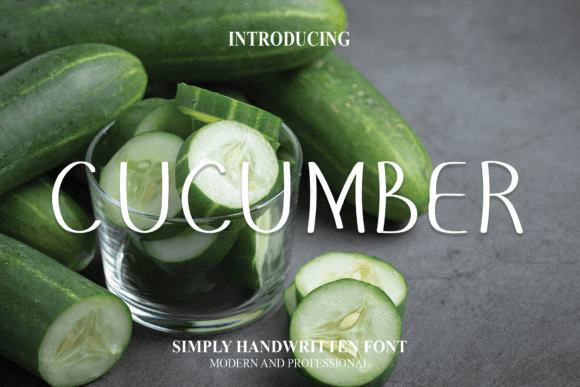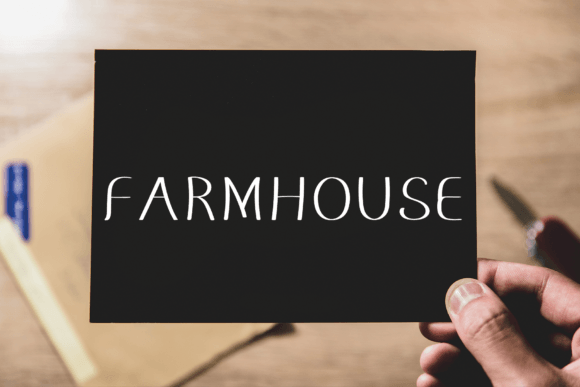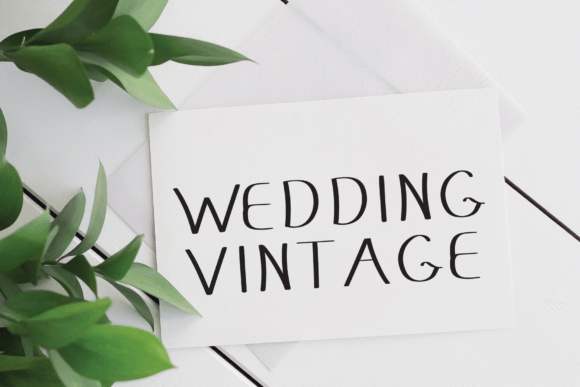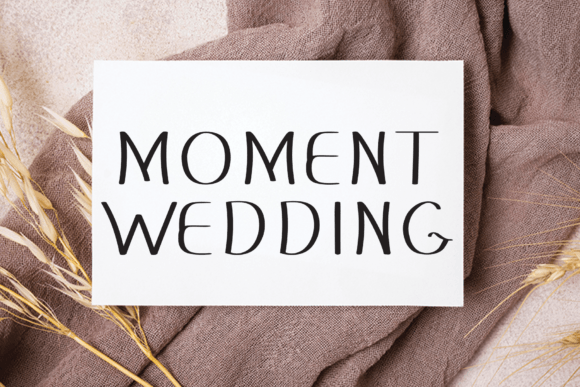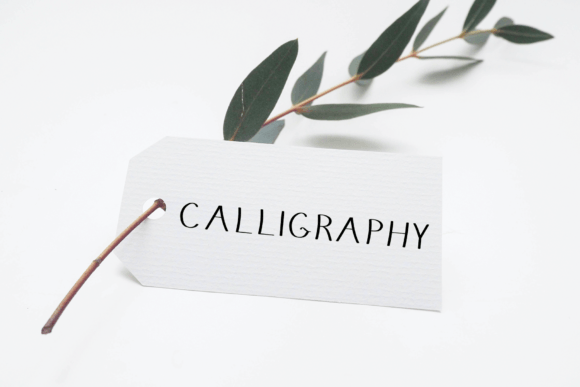
Cucumber Font
Cucumber Handwritten Font – Fun and Friendly Typeface
The Cucumber Handwritten Font is a playful and approachable script typeface designed to bring joy and creativity to your projects. With its casual handwritten strokes and friendly curves, it adds charm and character to both digital and print work. Whether you’re creating greeting cards, posters, or logos, this font ensures your designs feel warm and inviting.
A Script with Playful Personality
The Cucumber Handwritten Font blends clean handwritten details with a cheerful spirit. Its fun strokes make it ideal for lighthearted projects, while its readability keeps it practical for professional use. Because of this, it adapts seamlessly to many creative contexts.
Perfect for Greeting Cards and Crafts
One of the best uses of the Cucumber Handwritten Font is in greeting cards and crafts. Its joyful handwritten style adds warmth to invitations, thank-you notes, and seasonal designs. At the same time, it works wonderfully in posters, social media graphics, and product packaging, where a personal handwritten touch enhances the design.
The Cucumber Handwritten Font adapts effortlessly across different types of projects. From event posters and digital artwork to branding and stationery, it provides a handwritten charm that feels casual yet stylish. Its flexibility makes it a valuable addition to any creative toolkit.
Why Designers Love Cucumber Font
Designers love the Cucumber HandwrittenFont because it blends friendliness with functionality. Its fun details make it unique, while its readability ensures usability in professional designs. This combination of creativity and practicality makes it an essential font for diverse design projects.
In summary, the Cucumber HandwrittenFont is a fun, friendly, and versatile script typeface. With its playful handwritten strokes, quick installation, and broad usability, it is perfect for greeting cards, posters, logos, and crafts. Don’t miss the chance to download Cucumber HandwrittenFont and add cheerful handwritten charm to your next creative project.